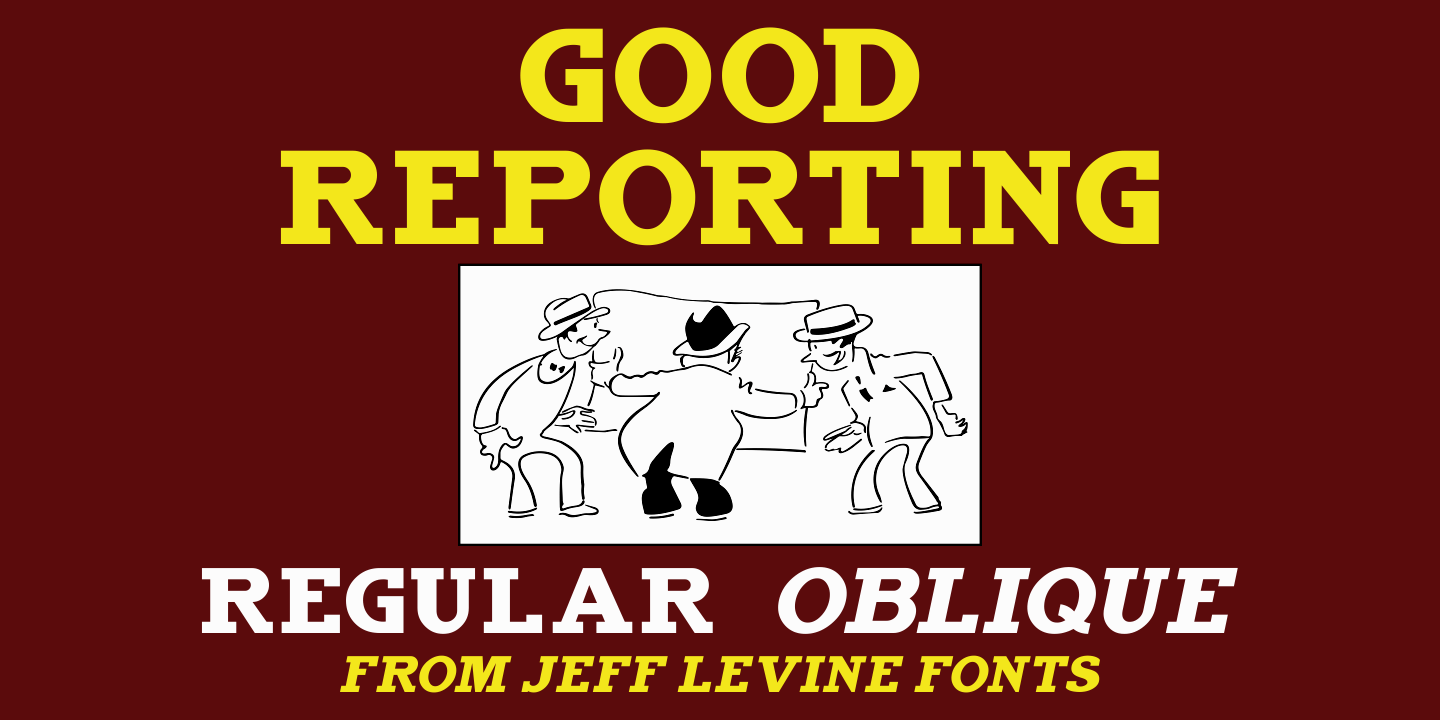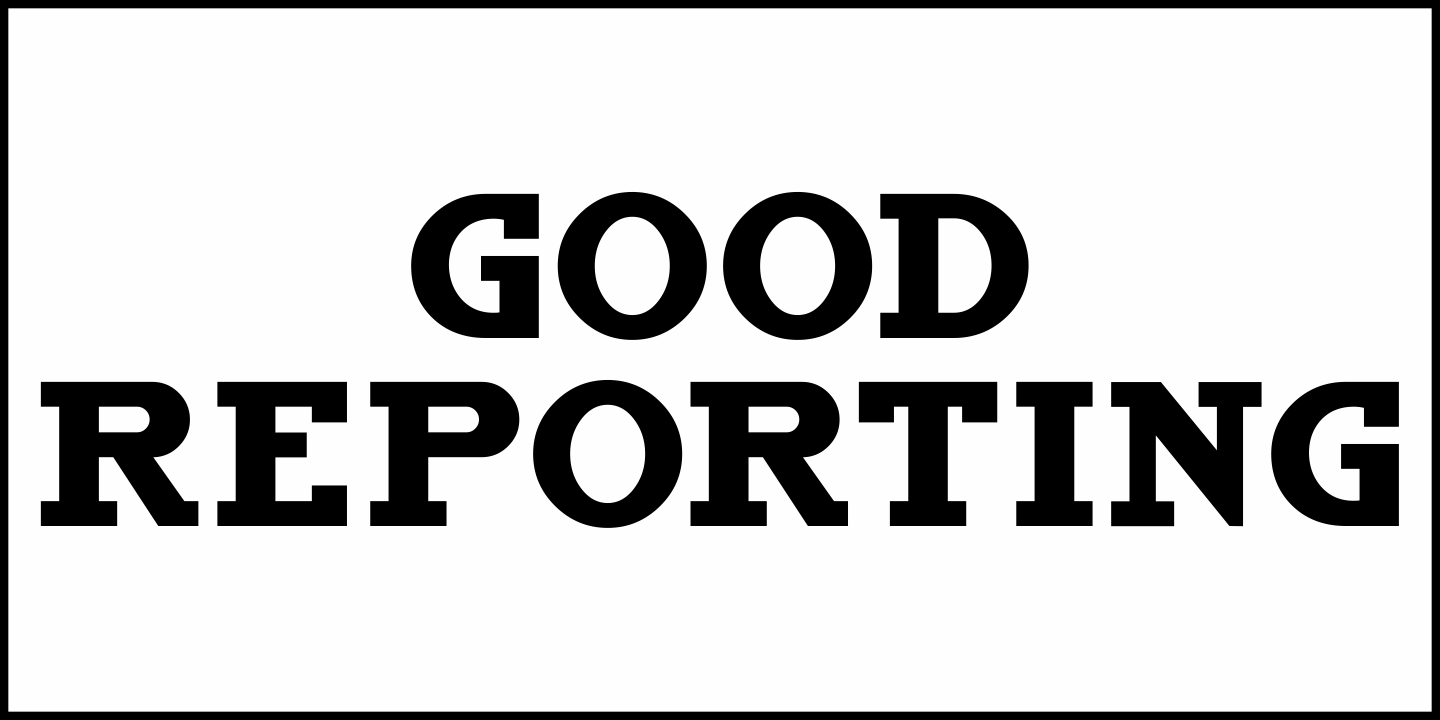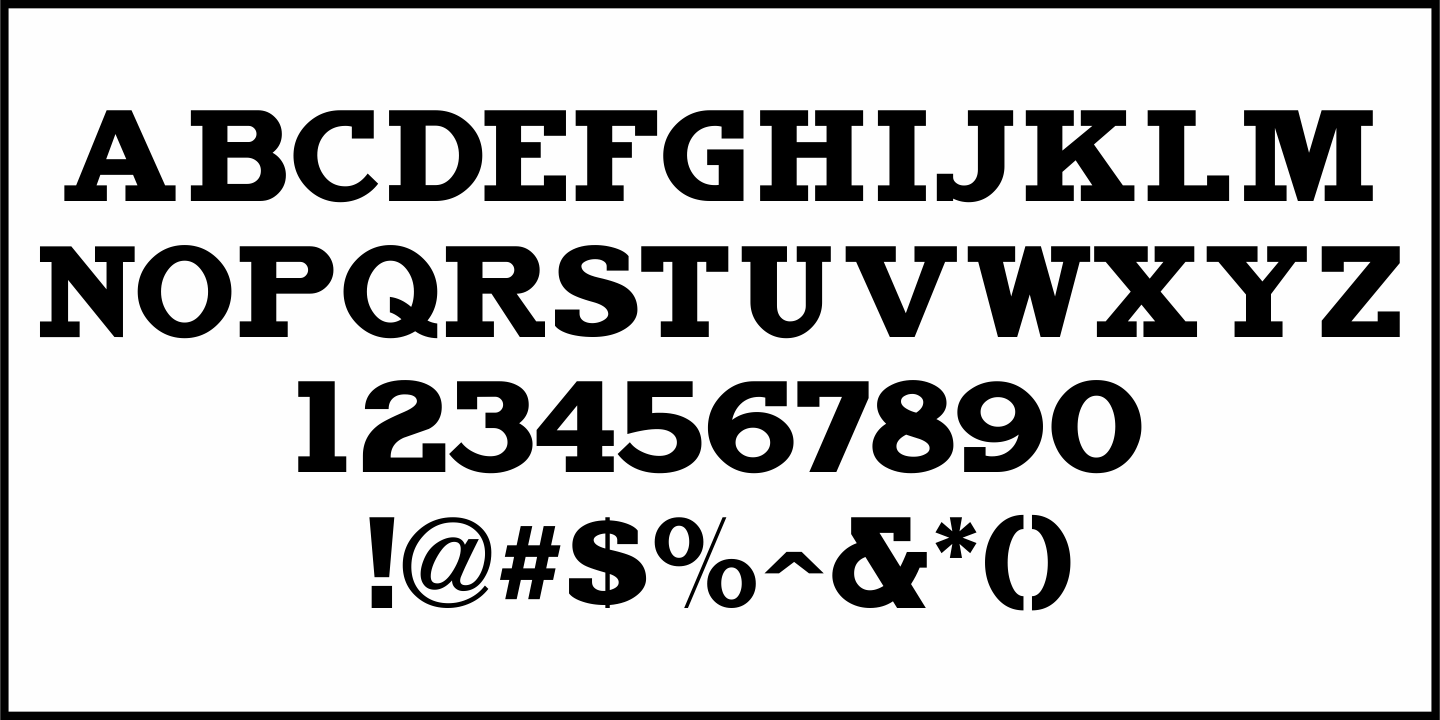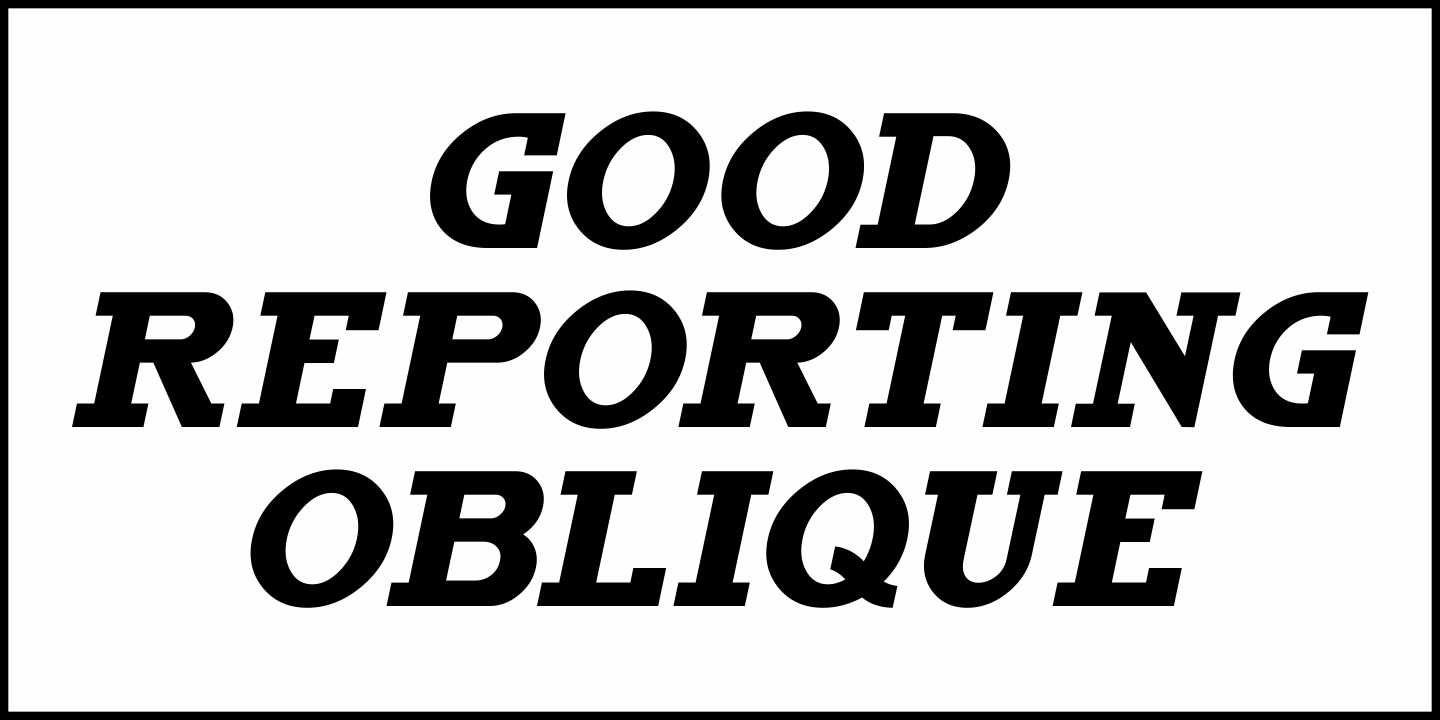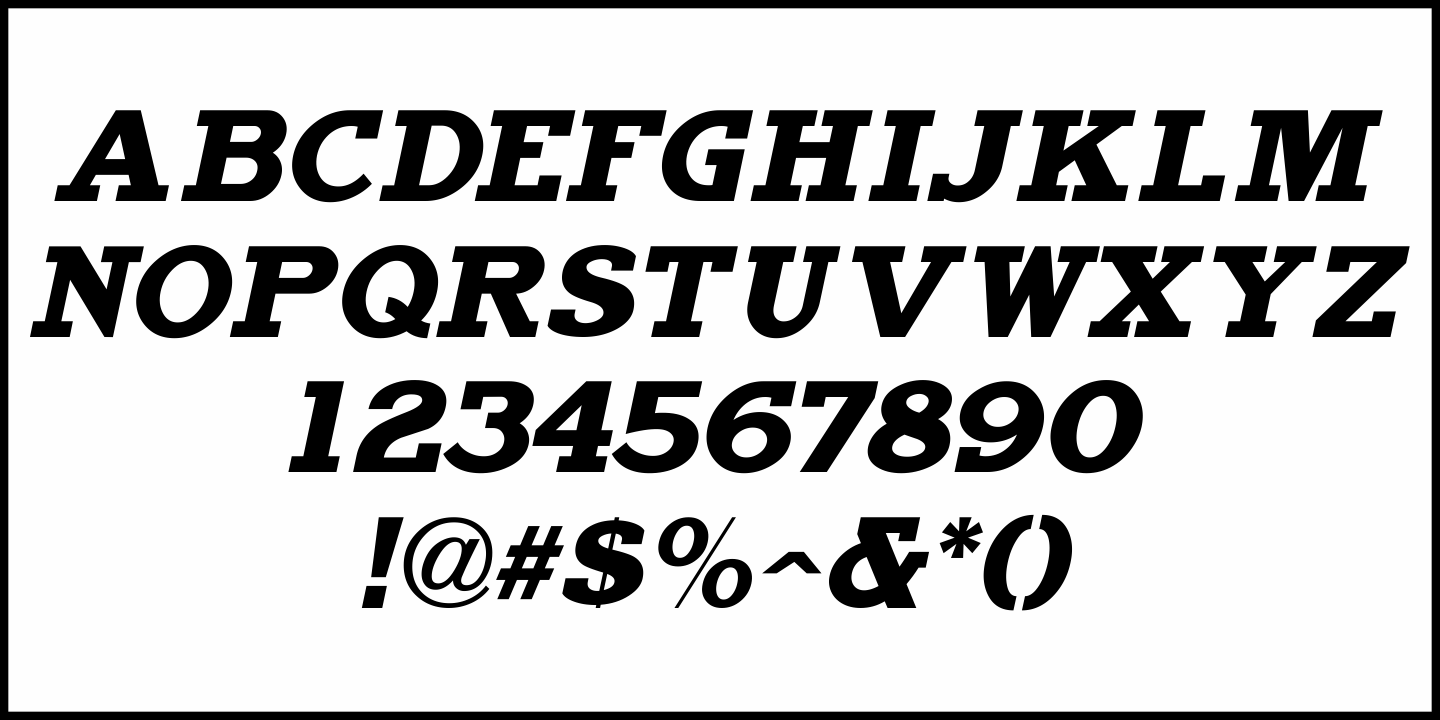
Good Reporting
A September 29, 1920 edition of The San Diego Union ran the headline 'Cicotte Confesses Baseball Fraud; Eight White Sox Players Indicted”. The White Sox baseball scandal was the first to reveal illegal gambling on the game.
However, the headline itself was set in a bold slab serif type style [likely ATF Foster] which served as the model for Good Reporting JNL; which is available in both regular and oblique versions.
Good Reporting JNL Regular by Jeff Levine Fonts